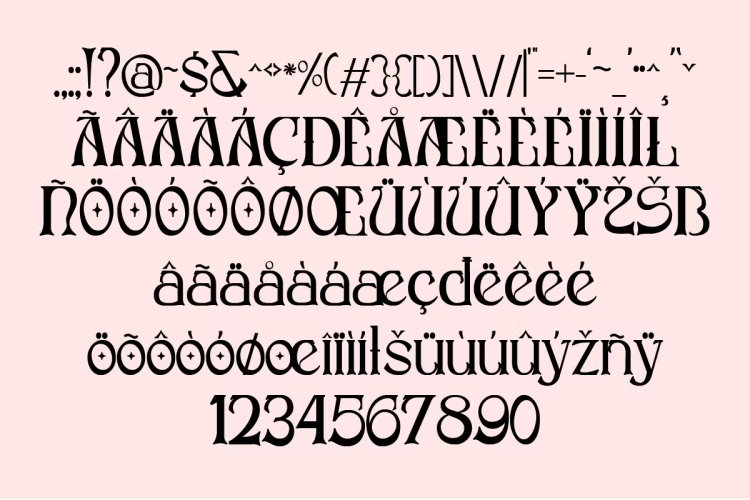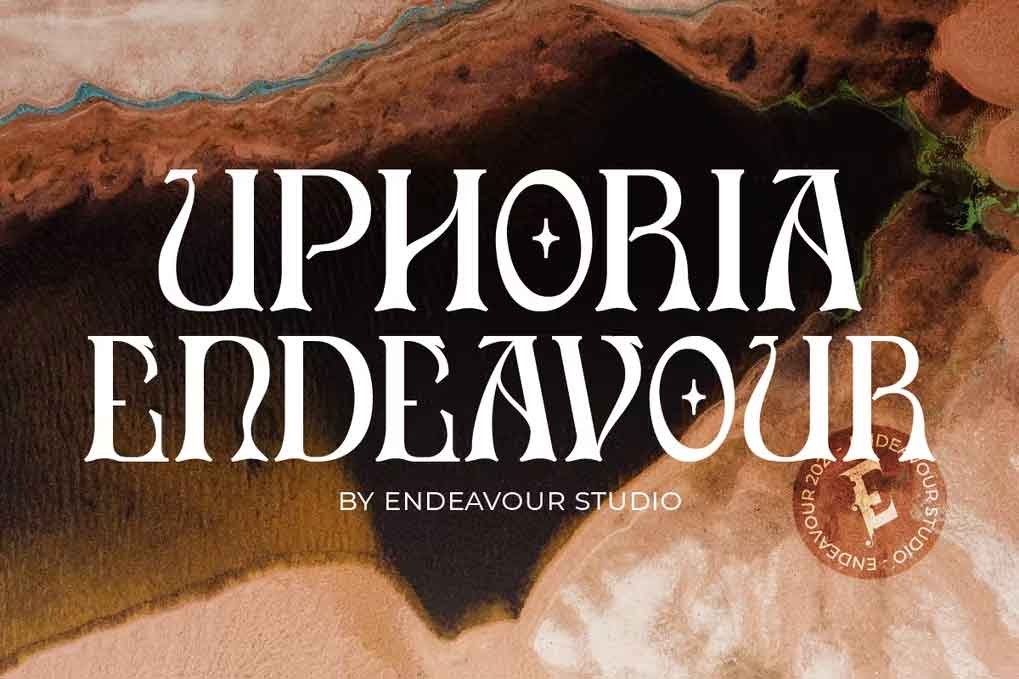
Uphoria Modern Serif Display Font
Uphoria is a modern serif display with a distinct curve that retains a serif sense along with each glyph. Experimental design, on the other hand, disregards design standards while retaining balance. Carefully created and developed, and appropriate for all design requirements.
Uphoria Modern Serif Display Font is a Serif Fonts font that brings a professional and versatile look to your projects. Uphoria is a modern serif display with a distinct curve that retains a serif sense along with each glyph.